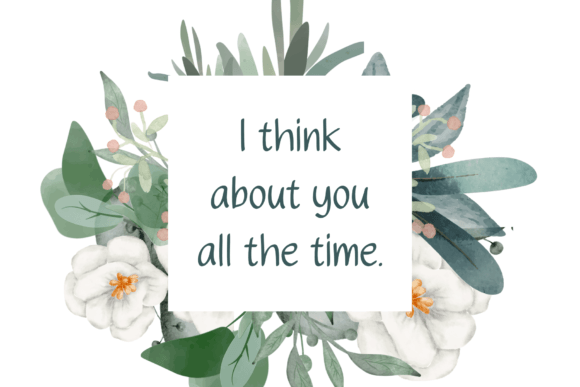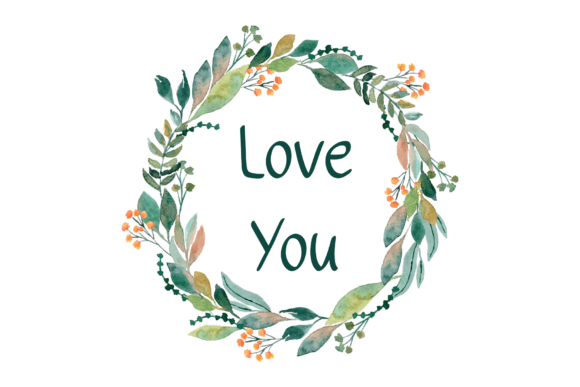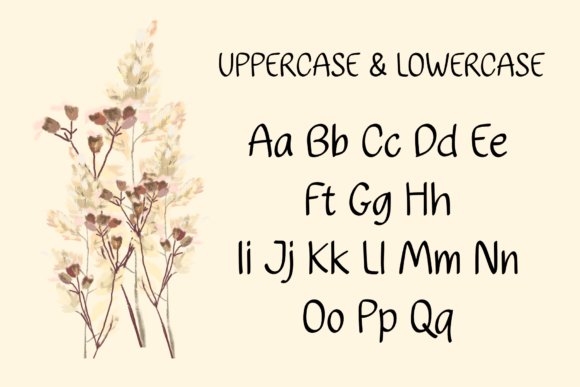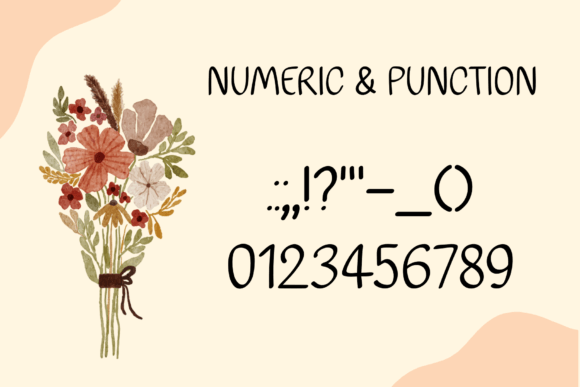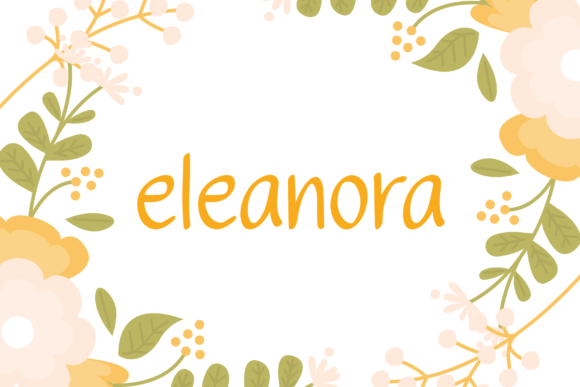
Introducing Eleanora: The Ultimate Script Font for Creative Expression
Are you tired of using the same old fonts for your design projects? Look no further! Eleanora Font is here to revolutionize the way you approach typography. With its elegant curves, flowing strokes, and timeless beauty, Eleanora is the perfect script font for all your creative needs.
The Perfect Blend of Elegance and Versatility
Eleanora is more than just a font – it’s an experience. Its sophisticated design adds a touch of luxury to any project, making it ideal for wedding invitations, branding projects, and social media posts. Whether you’re a designer, crafty DIY enthusiast, or simply someone who appreciates beautiful typography, Eleanora is sure to impress.
Key Features of Eleanora Font
- Elegant Curves and Flowing Strokes: Eleanora’s unique design features smooth, flowing strokes that add a touch of elegance to any project.
- Versatile and Customizable: Eleanora comes in a variety of weights and styles, making it easy to tailor to your specific needs.
- Highly Legible: Eleanora is designed to be easy to read, ensuring that your message comes across loud and clear.
- Timeless Beauty: Eleanora’s classic appeal ensures that it will remain a favorite among designers and creatives for years to come.
Endless Design Possibilities with Eleanora
One of the best things about Eleanora is its versatility. This font can be used for a wide range of design projects, including:
- Wedding Invitations: Add a touch of elegance and sophistication to your wedding invitations with Eleanora.
- Branding Projects: Use Eleanora to create a luxurious and professional brand identity.
- Social Media Posts: Elevate your social media posts with Eleanora’s elegant curves and flowing strokes.
- Headlines and Body Text: Use Eleanora for headlines, body text, or even as an accent in your designs.
Why Choose Eleanora Font?
With so many fonts available, why choose Eleanora? Here are just a few reasons why Eleanora stands out from the crowd:
- Unique Design: Eleanora’s elegant curves and flowing strokes set it apart from other fonts.
- Highly Legible: Eleanora is designed to be easy to read, ensuring that your message comes across loud and clear.
- Versatile: Eleanora comes in a variety of weights and styles, making it easy to customize and tailor to your specific needs.
In conclusion, Eleanora Font is the perfect script font for all your creative needs. Its elegant curves, flowing strokes, and timeless beauty make it a versatile and sophisticated addition to any design project. Whether you’re a designer, crafty DIY enthusiast, or simply someone who appreciates beautiful typography, Eleanora is sure to impress. So why wait? Try it out today and see the difference it can make in your projects!